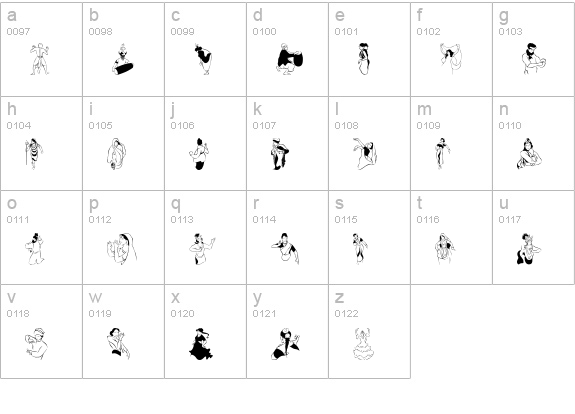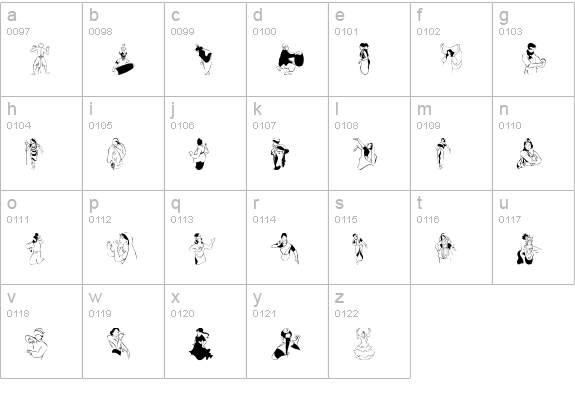
Dancer In The Dark Font Details
Dancer In The Dark font is a mesmerizing creation that embodies the essence of grace and elegance. With its fluid and dynamic letterforms, this font captures the spirit of a dancer effortlessly gliding across the stage. Its curvaceous and expressive strokes bring a sense of movement and rhythm to any design. The Dancer In The Dark font is a free typographic masterpiece that allows designers to unleash their creativity without any limitations. It is a versatile typeface that can be used for various projects, from branding and logo design to posters and invitations. Its unique and captivating style adds a touch of sophistication to any design, making it perfect for those seeking to make a bold statement. This font is freely available to download at FontsMarket.com, a trusted source for high-quality fonts. With just a few clicks, designers can access this stunning typeface and elevate their projects to new heights. Whether you're a professional graphic designer or a passionate hobbyist, the Dancer In The Dark font is a must-have addition to your font collection. Embrace the freedom of expression that the Dancer In The Dark font offers. Let its graceful curves and enchanting charm dance across your designs, captivating your audience and leaving a lasting impression. Download this beautiful font today at FontsMarket.com and let your creativity shine.